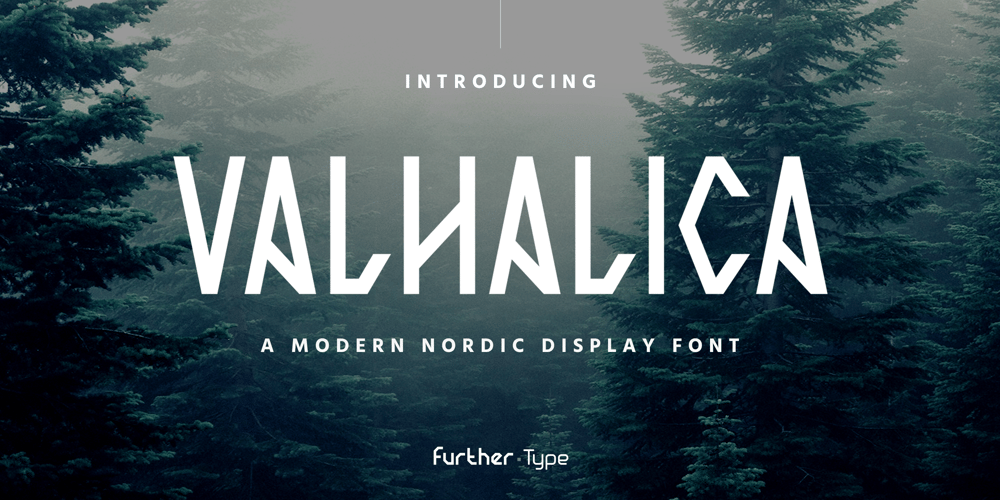
Valhalica Font Family was designed by Thomas Weaver and published by Further Type. Valhalica contains 6 styles and family package options. The Valhalica typeface grew out of a project to design a modern mobile app for the ancient strategy board game Hnefatafl, also known as ‘Viking Chess’. The typeface draws its inspiration from the ancient runic alphabets used by the Norse people, known as ‘futharks’. Modeling its letterforms on the aesthetics of these futhark alphabets, alongside an appreciation of clean, contemporary typography, Valhalica is a highly legible display font that lends itself to big, bold headlines and logos with a Nordic tone.